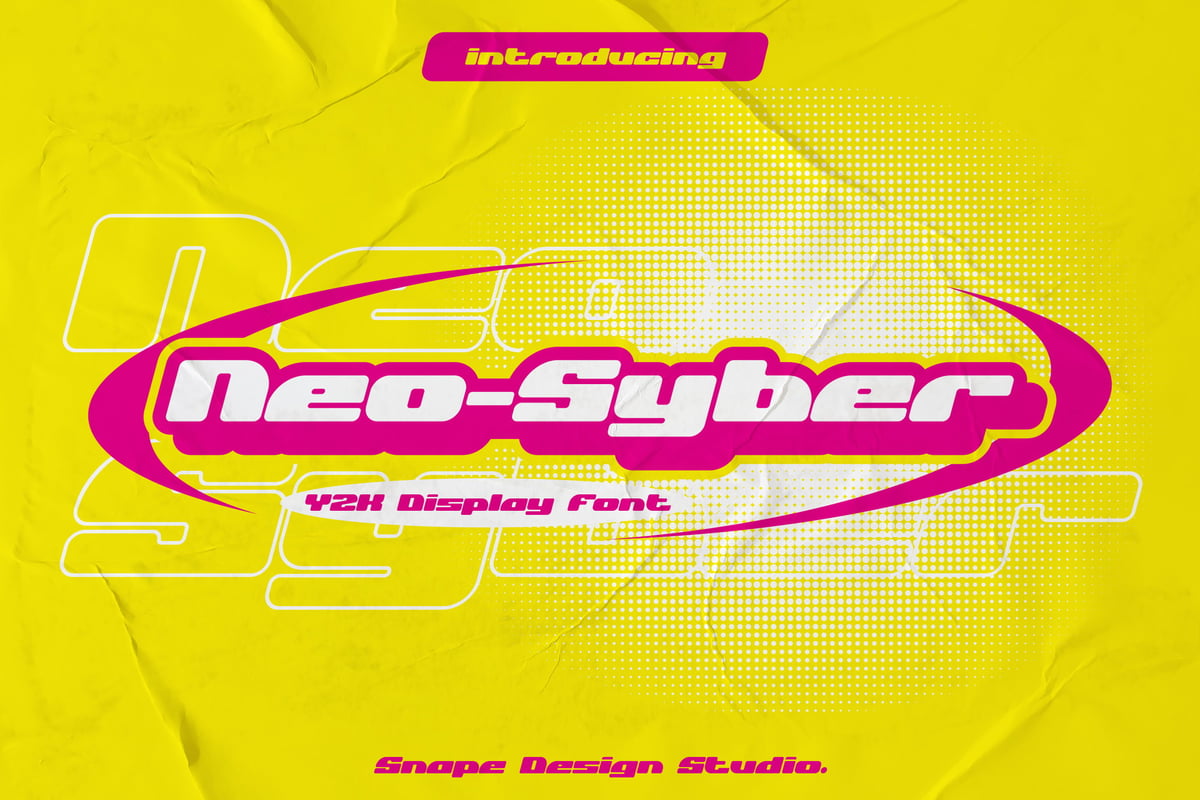
Neo-Syber - Y2K Font
Transform your designs with Neo-Syber, the ultimate Y2K-inspired futuristic typeface that screams digital revolution. This cutting-edge font draws heavy inspiration from the Y2K design era, channeling the energy of millennium music and pop culture into every character. Neo-Syber delivers that authentic retro-futuristic aesthetic that defined the turn of the century. Perfect applications include: Technology and digital projects Space and galaxy-themed designs Movie titles and film projects Docume...